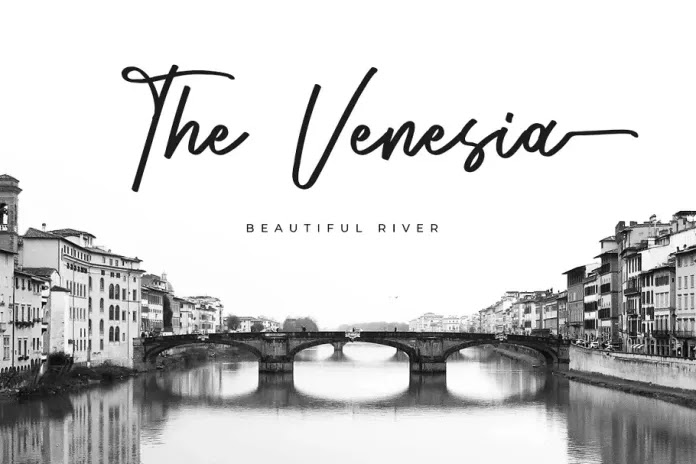
This is a chic, clean handwritten font with modern flows. It’s designed and shared by Bluestype Studio. Use it for any design project that requires a personalized appearance!